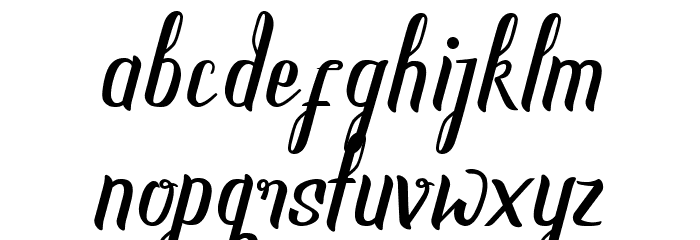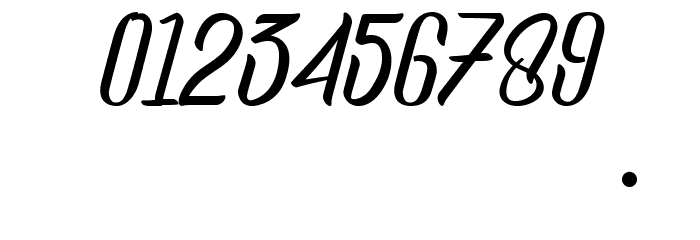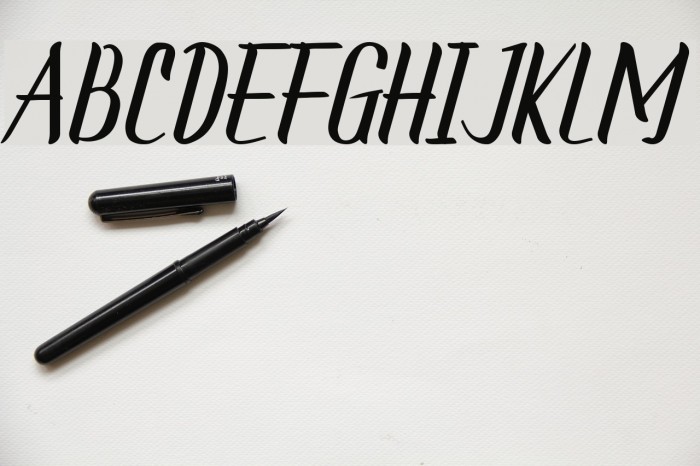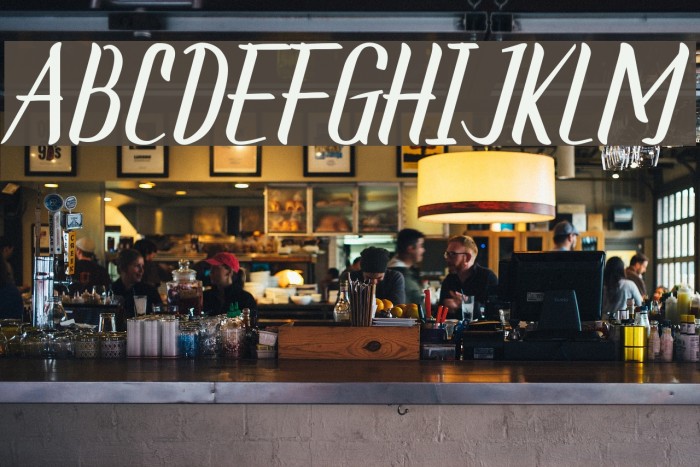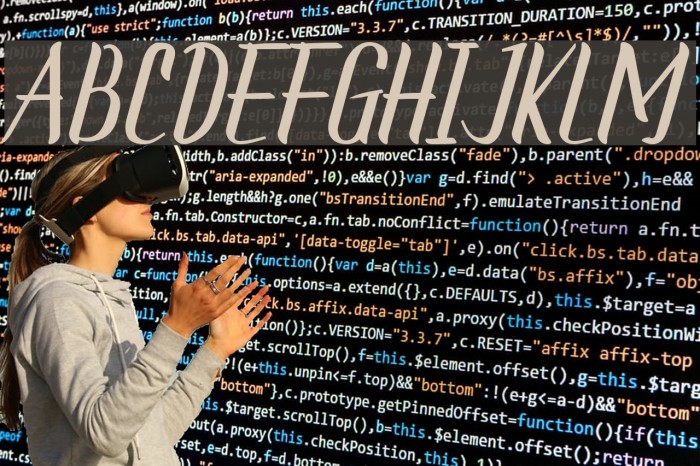
newscraper-Regular Font
This font features a dynamic and flowing script style, characterized by its elegant and slightly slanted letterforms. The uppercase letters are tall and slender, with a graceful curvature that adds a sense of movement. The lowercase letters maintain a consistent style, with smooth connections and a rhythmic flow. The numerals are distinct and maintain the same fluidity, making them easily readable. Special characters are crafted with the same attention to detail, ensuring a cohesive look across all glyphs. This font exudes a sense of sophistication and creativity, making it suitable for a variety of design applications.
A dynamic and elegant script font with flowing, slanted letterforms.
- Proposed Projects: Ideal for wedding invitations, branding projects, and elegant packaging designs.
- Category: Script
- Overall Style: Elegant
- Use Case: Logos, Invitations, Branding